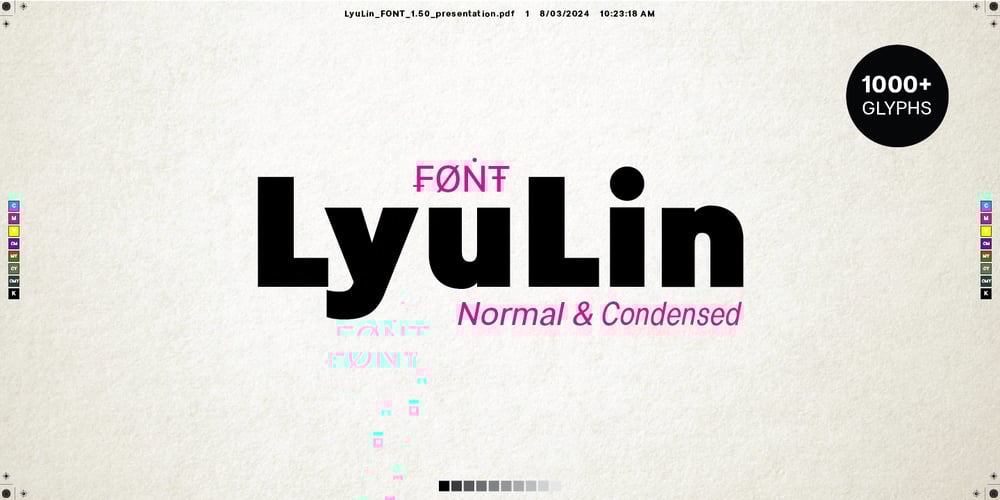
Lyu Lin Font Family was designed by Stefan Stoychev and published by Stefan Stoychev. Lyu Lin contains 60 styles and family package options. The LyuLin Font Family is a timeless sans-serif font known for its flexibility and extensive weight options. Developed in 15 weights, both regular and italic and their associated condensed forms, it offers designers a wide range of choices for their projects. In addition, the LyuLin font includes shorthand shapes, improving efficiency and readability in a variety of design applications. With its classic yet modern aesthetic and wide range, LyuLin is a great choice for typography projects that require flexibility and elegance.